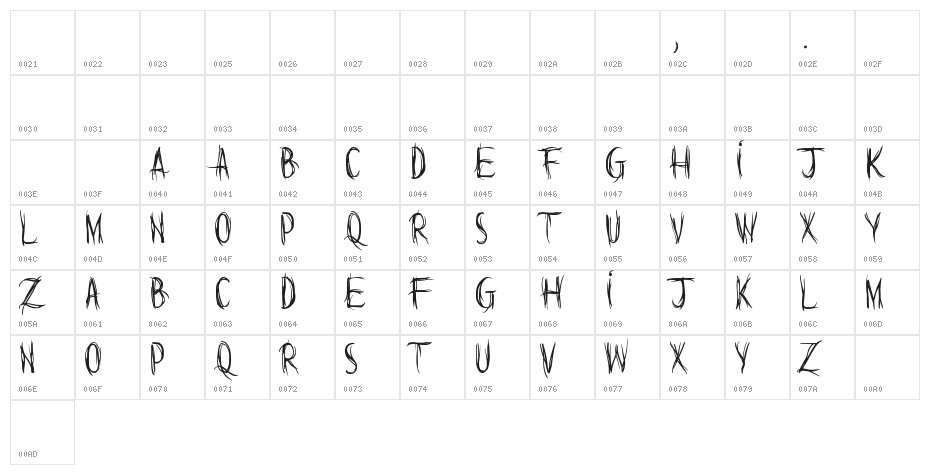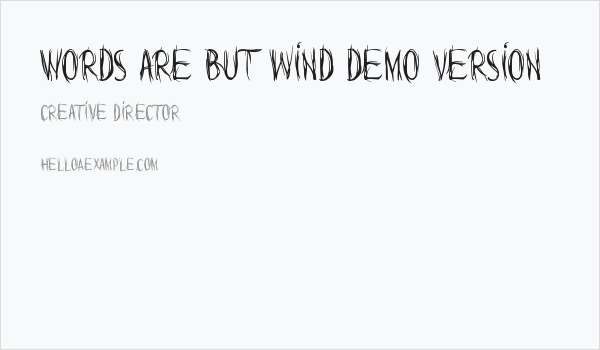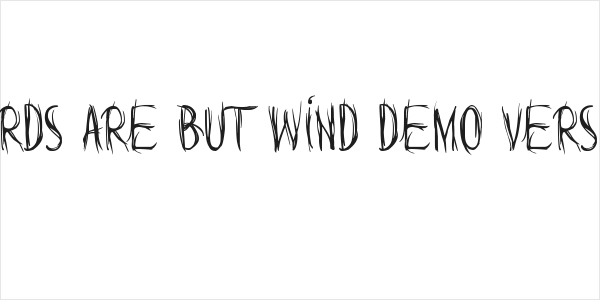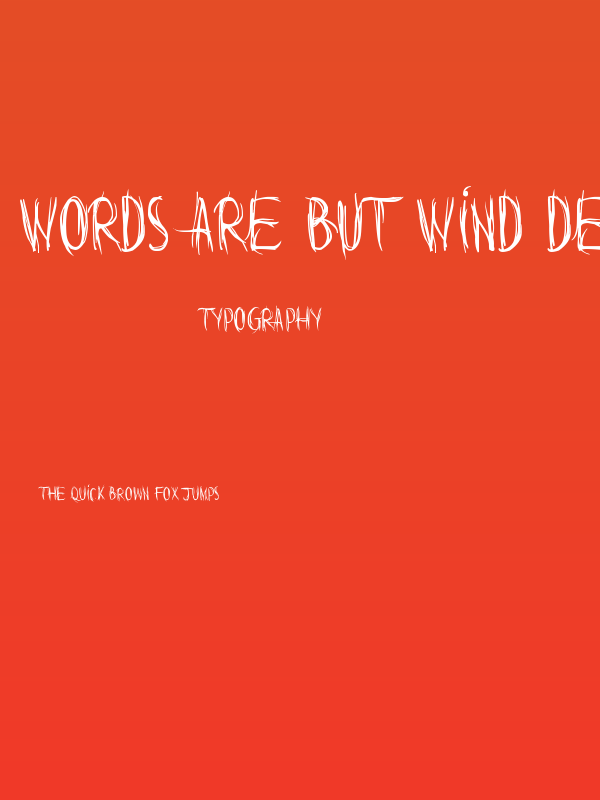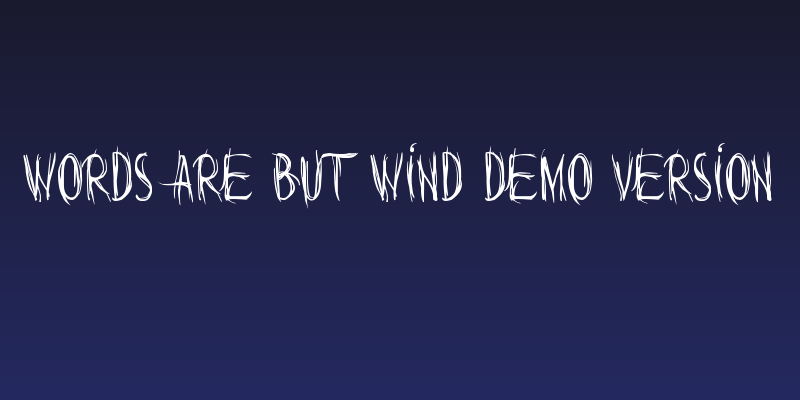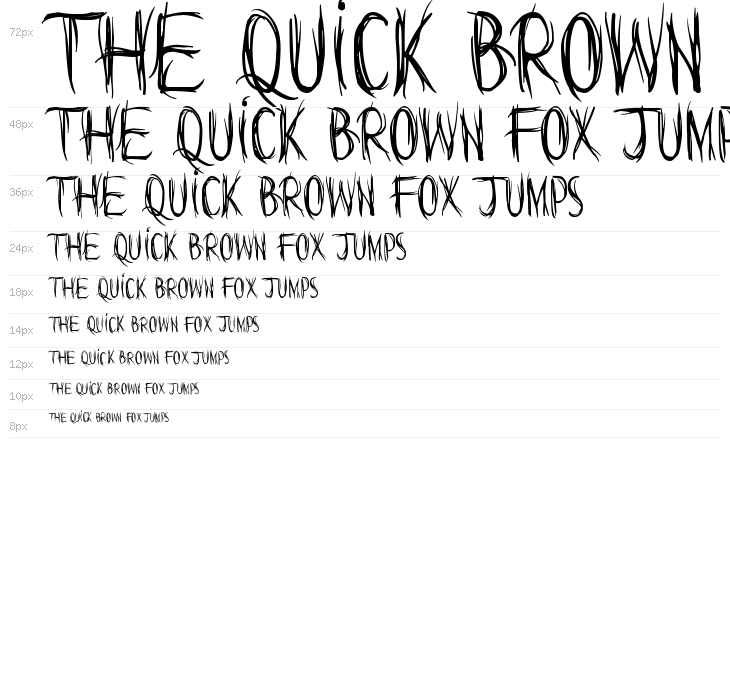
Words are but wind Demo Version Font
Words are but wind Demo Version Description
This font features a highly decorative and expressive style, characterized by its rough, hand-drawn appearance. The strokes are uneven and jagged, giving it a wild and untamed look. Each character is unique, with varying line thicknesses and dynamic, energetic forms. The font exudes a sense of movement and chaos, making it stand out with its artistic flair. It is ideal for projects that require a bold and unconventional aesthetic, capturing attention with its distinctive and edgy design.
| Proposed Projects | Ideal for album covers, posters, and creative branding that seeks to convey energy and individuality. |